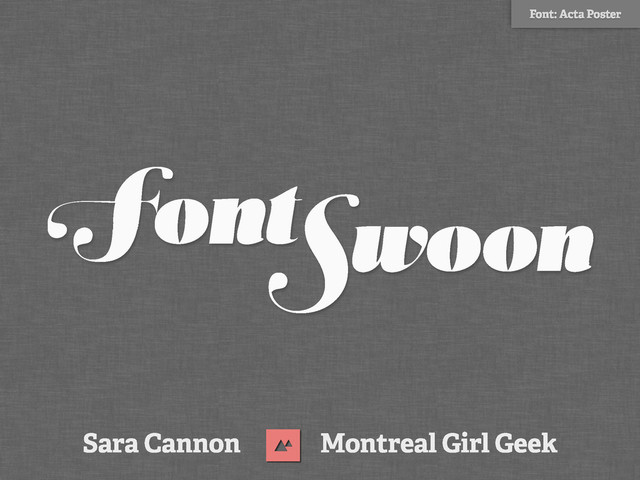
Font Swoon
Font Swoon
Times New Roman. Helvetica. Comic Sans. We’ve all got fonts we love to use or love to hate. Typography is one of those topics that’s easy to overlook, but when you bring it up, everyone has an opinion. Sara’s talk is not just for designers spending hours debating on the slant of a curly-quote or the perfect sans serif – it’s for anyone who’s ever typed, read, or even just stared at the screen or page. Because typography is essential to how we read, consume, convey, and process the written word and it’s BFF, design.
Let’s take our relationship with web typography to the next level and crush on the latest fonts, check out some awesome CSS3 implementations, and find incredible inspiration for interaction, refinement and our next dates with negative space. Come fall head over heels with us at Font Swoon!
slideshare.net/saracannon Fonts: Vitesse, ARS Maque e
2. .selector  {     font-­‐family:  Helvetica,  sans-­‐serif; } .selector  {
font-­‐family:  “Droid-­‐Sans”,  Helvetica,   sans-­‐serif; }
3. html  {   font-­‐size:  16px; } .selector  {   /*
24  /  16  =  1.5            */   font-­‐size:  1.5rem; }
4. .selector  {   color:  #707070;     text-­‐shadow:  5px  5px
0px  #eee,     7px  7px  0px  #707070; } designshack.net/articles/css/12-fun-css-text-shadows-you-can-copy-and-paste
5. p:first-­‐child::first-­‐letter  {     float:  left;     color:  #A6EEFF;
font-­‐size:  75px;     line-­‐height:  60px;     padding-­‐top:  4px;     padding-­‐right:  8px;     padding-­‐left:  3px; }
6. Never EVER Use The Infamous Comic Sans (It doesn’t matter
that you think it’s good for wire-framing)
7. LIFE IS SHORT, ART IS LONG Typography is Everything. CODE
IS POETRY. Font: Pacifico, League Gothic